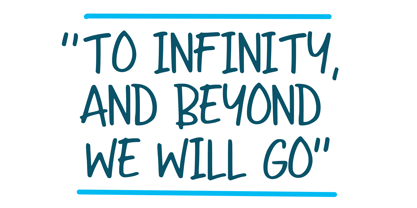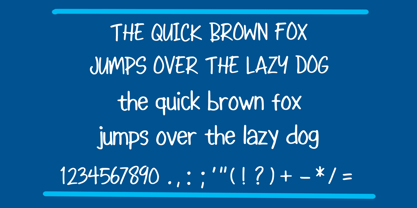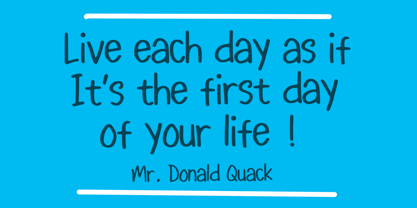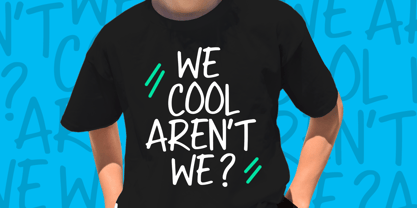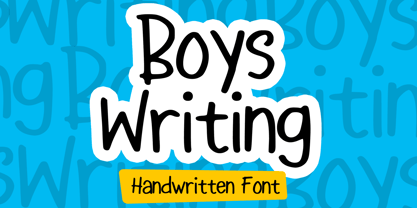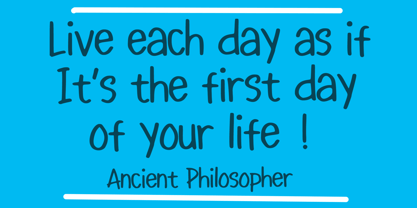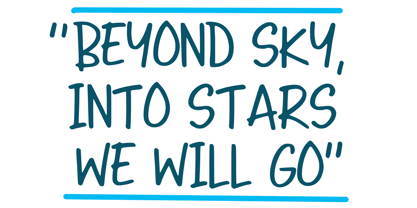
Boys Writing
by Mvmet
The Boys Writing Font Family was designed by Gabriel Valentinus and published by Mvmet. Boys Writing contains 1 styles. More about this family
Boys Writing is a fun and cool handwritten font, inspired by boys spontaneus handwriting mixed with a bit of graffiti tags writing and street art. It will elevate a wide range of design projects to the highest level. You can use this font for many design ideas such as stickers, t-shirt designs, amazing logo designs, magazine or book covers, comics, cartoon drawings, and many more. This font will add a cool touch to your designs!
Designers: Gabriel Valentinus
Foundry: Mvmet